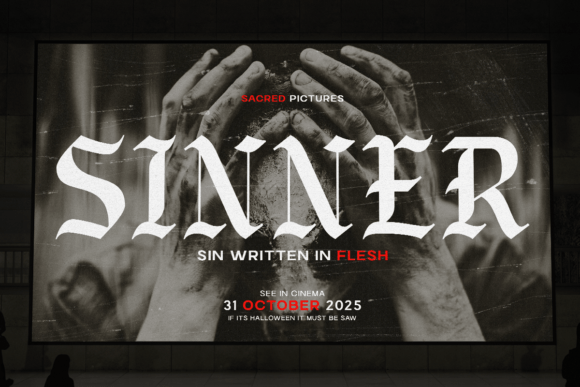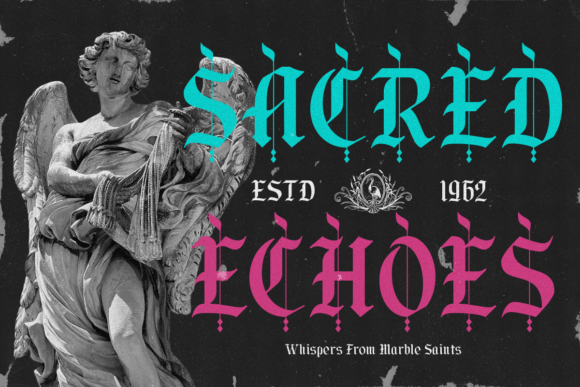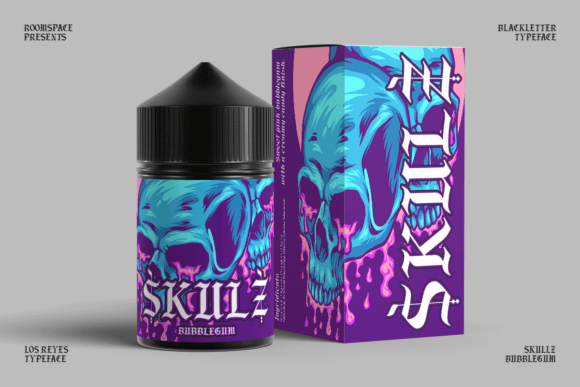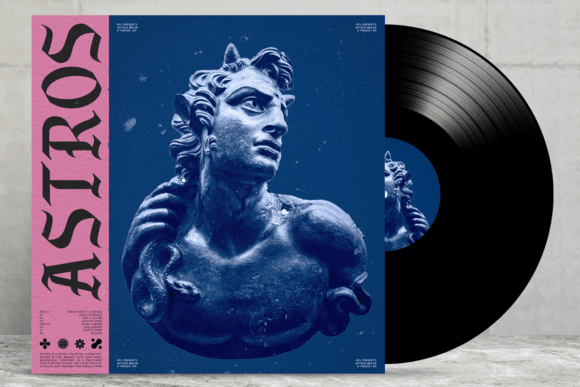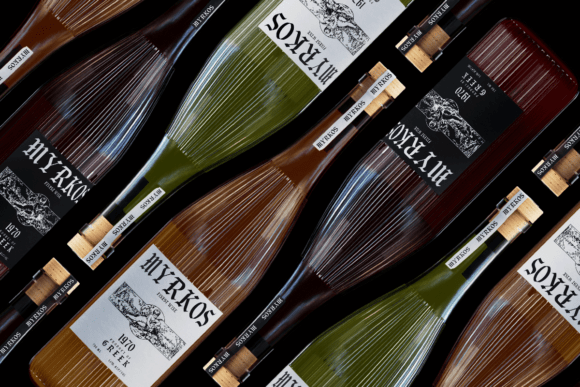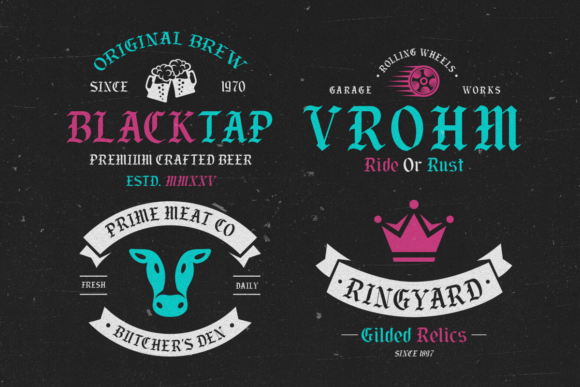
Introduction to Los Reyes Font
As designers, we’ve all been there – staring at a blank canvas, trying to bring a concept to life. The right font can make all the difference, and when it comes to making a bold statement, Los Reyes Font is the perfect choice. This stunning gothic blackletter display typeface is designed to transport your creative project to a regal, medieval era, perfect for tattoos, posters, album covers, and streetwear branding.
What sets Los Reyes Font apart is its unique blend of sharp serifs, strong contrast, and beautiful readability. It’s not just a design resource, but a powerful tool that delivers a high-quality aesthetic while maintaining modern craftsmanship. Whether you’re working on a dramatic creative project or simply looking for a free download to elevate your design, Los Reyes Font is an invaluable asset in your design toolkit.
Los Reyes Font
- Features a unique and elegant design, with intricate details and a sophisticated aesthetic.
- Has a large x-height, making it highly legible and suitable for both body text and display typography.
- Includes a range of weights, from light to bold, allowing designers to customize the font to suit their needs.
Honest Review: Los Reyes Font
I recently stumbled upon the Los Reyes Font, and I’m excited to share my thoughts on this free design resource. As a designer, I’m always on the lookout for high-quality fonts to elevate my creative projects.
What works well: ✨ The Los Reyes Font boasts a unique, hand-drawn aesthetic that adds a touch of personality to any design. The font is available in several weights, making it versatile for various applications. The transparent background option is also a plus, allowing for seamless integration with other design elements.
Overall, I’m impressed with the Los Reyes Font’s potential for creative projects, such as social media graphics, blog posts, or even wedding invitations. If you’re looking for a free design resource to add a personal touch to your work, Los Reyes Font is definitely worth considering.
Key features:
- Unique, hand-drawn aesthetic
- Available in several weights
Los Reyes Font
Los Reyes Font is a versatile and high-quality design resource ideal for creative projects. With its transparent background, this font offers limitless possibilities for customization.
Los Reyes Font is perfect for branding, marketing materials, and creative projects requiring a touch of elegance and sophistication.